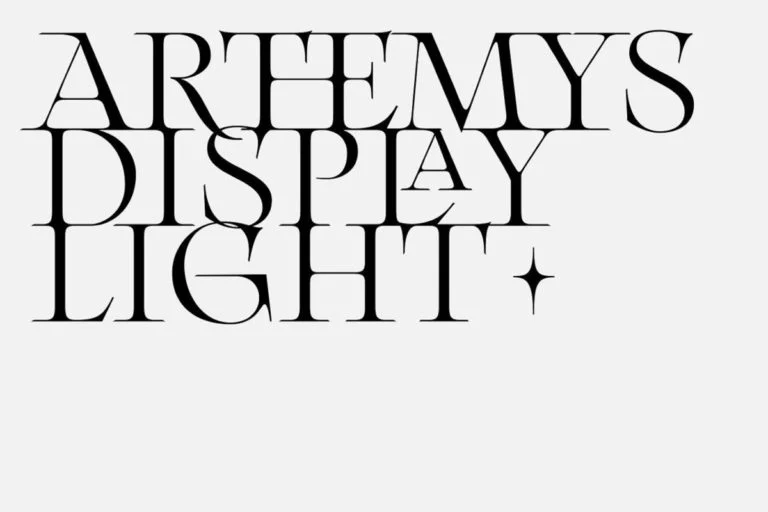
Arthemys | New Release
Newley released on Type Department, the stunningly elegant Arthemys Display Light is the first exploration of Glyph software coming from Paris-based graphic and type designer, Morgane Vantorre (@gagane_). A serif typeface intended for display purposes, Arthemys showcases a refined and…